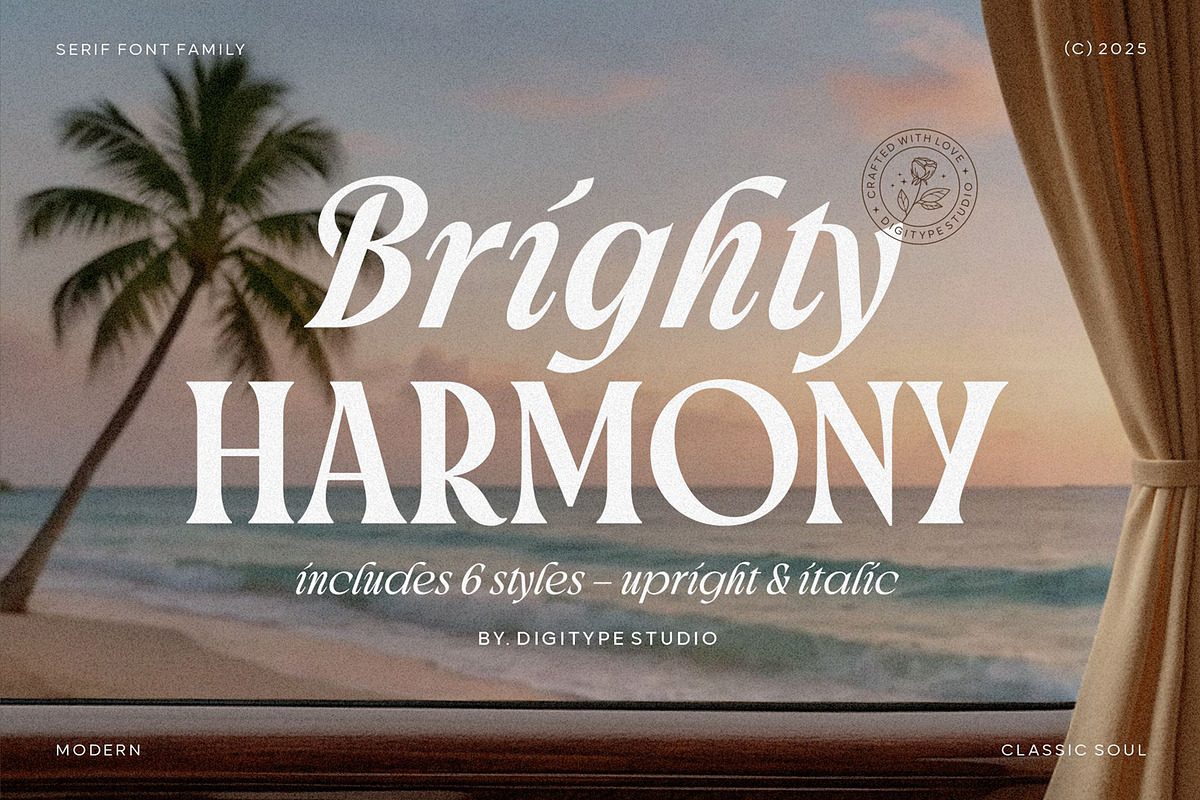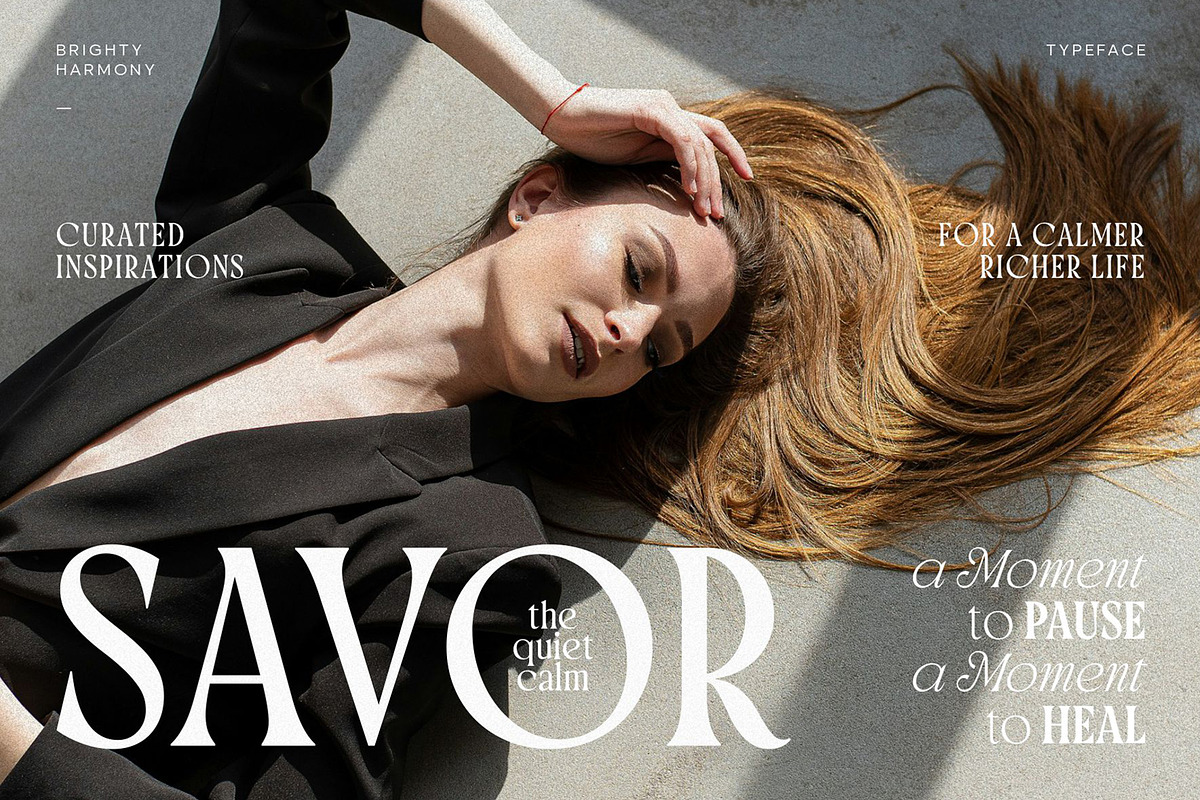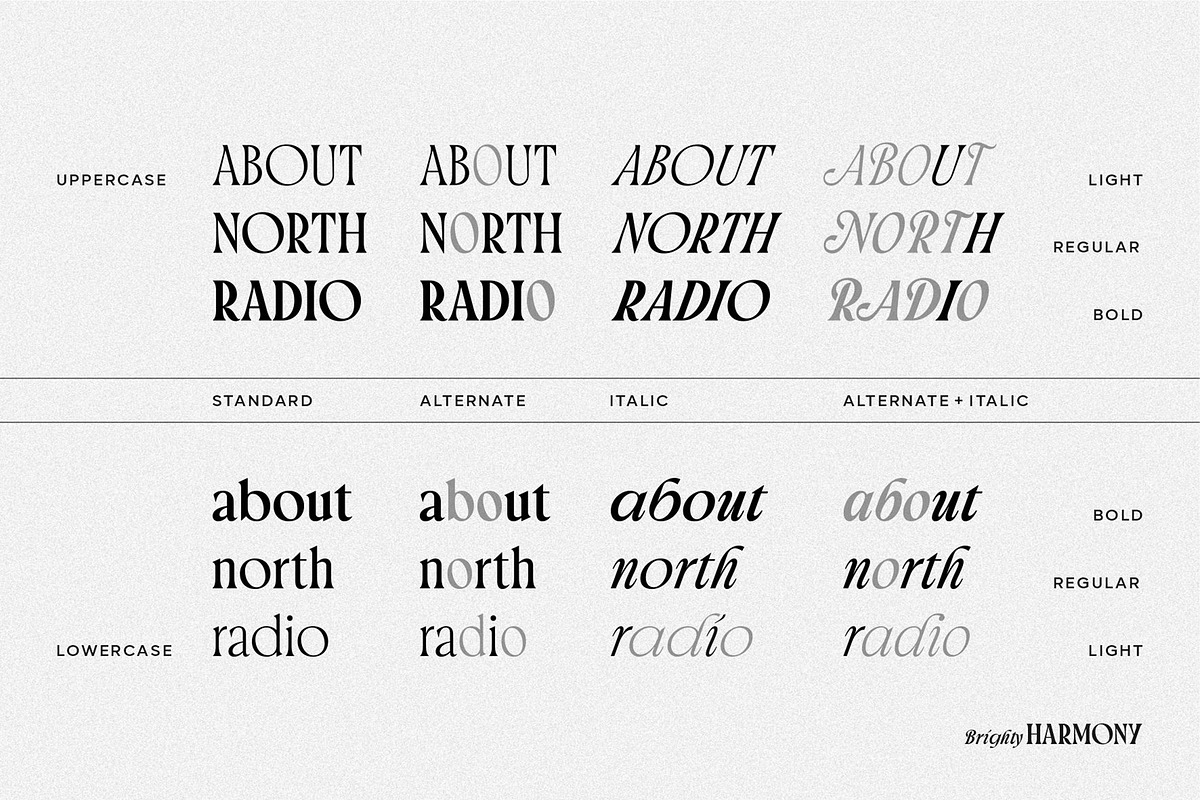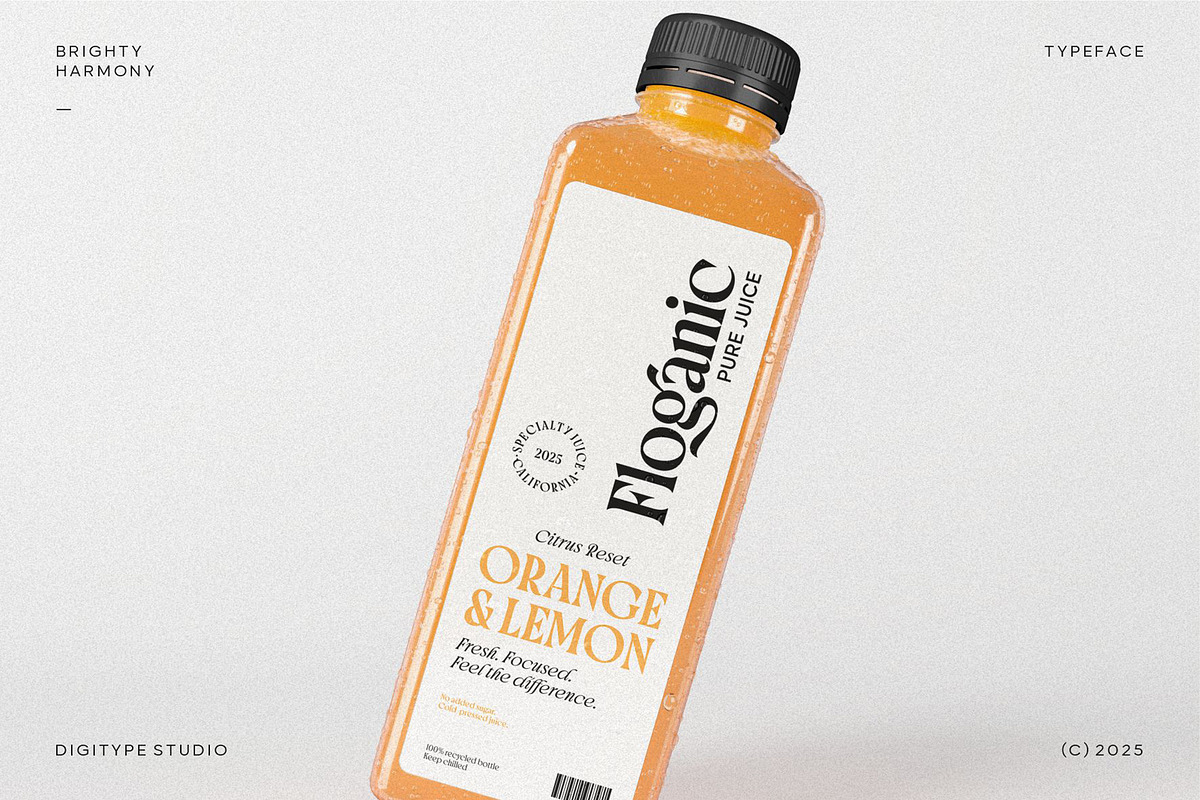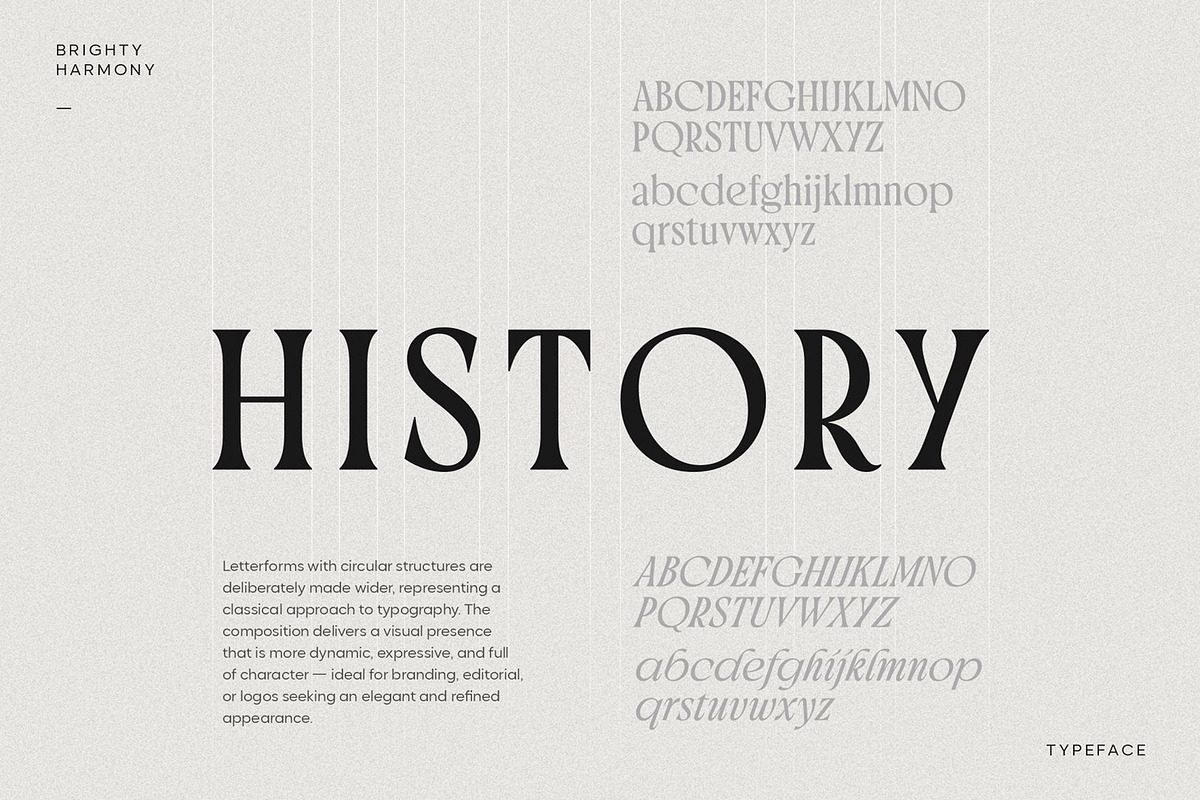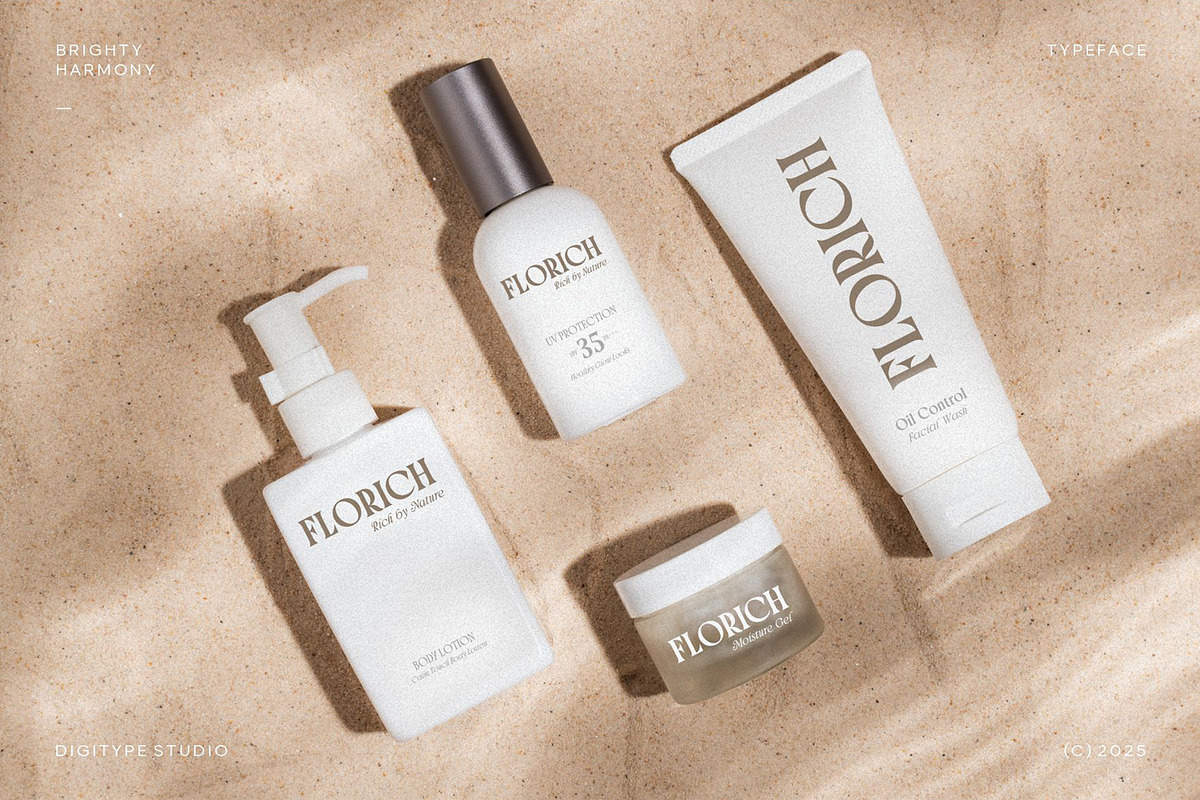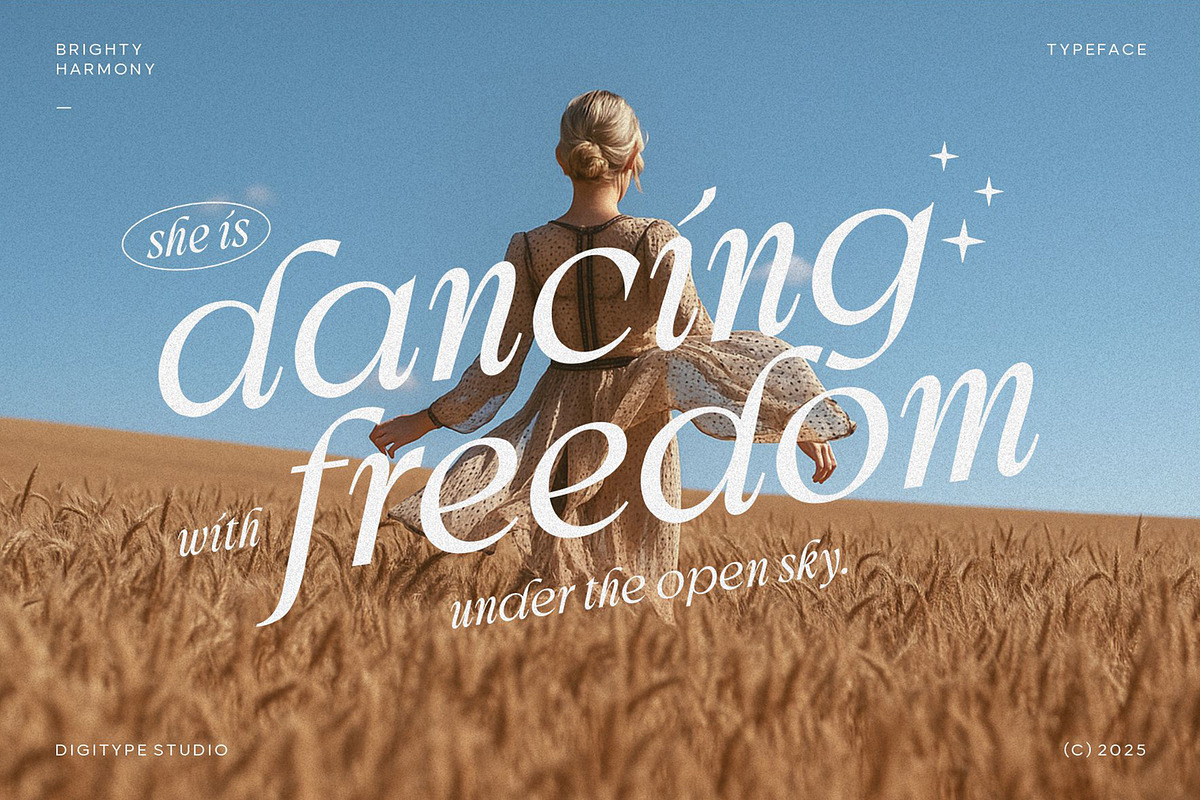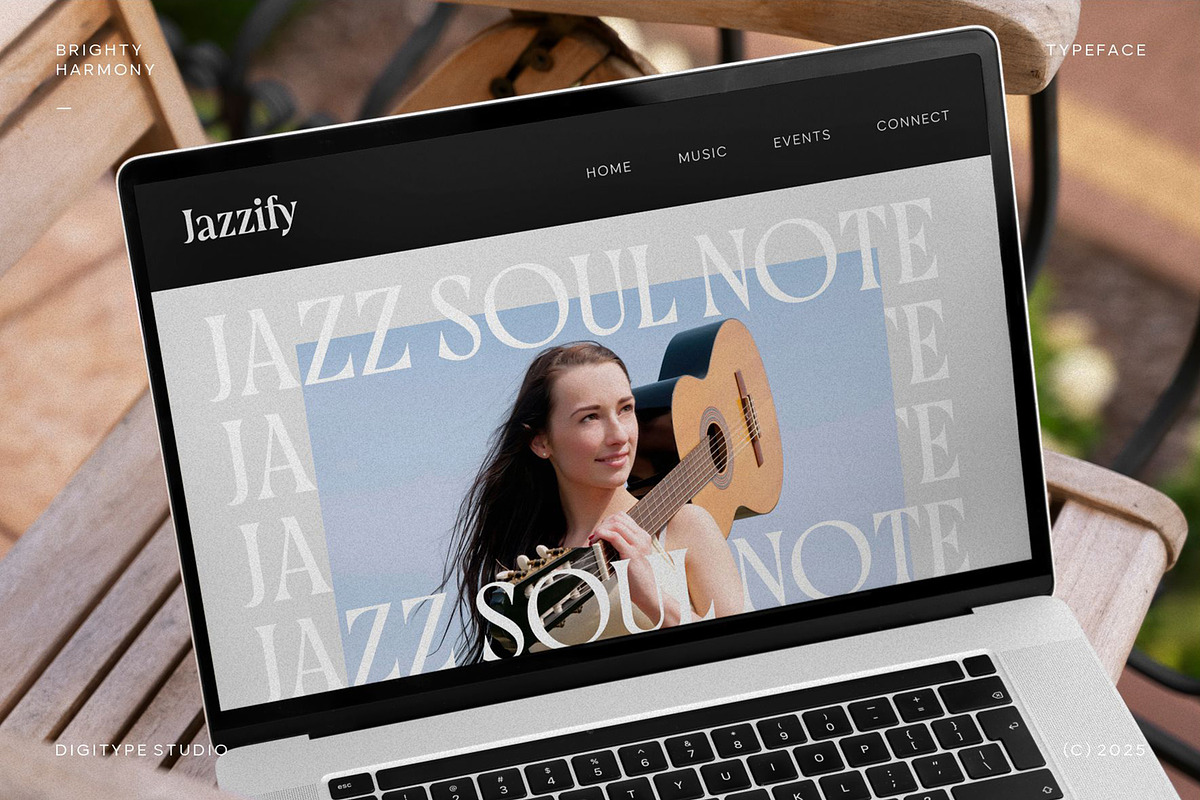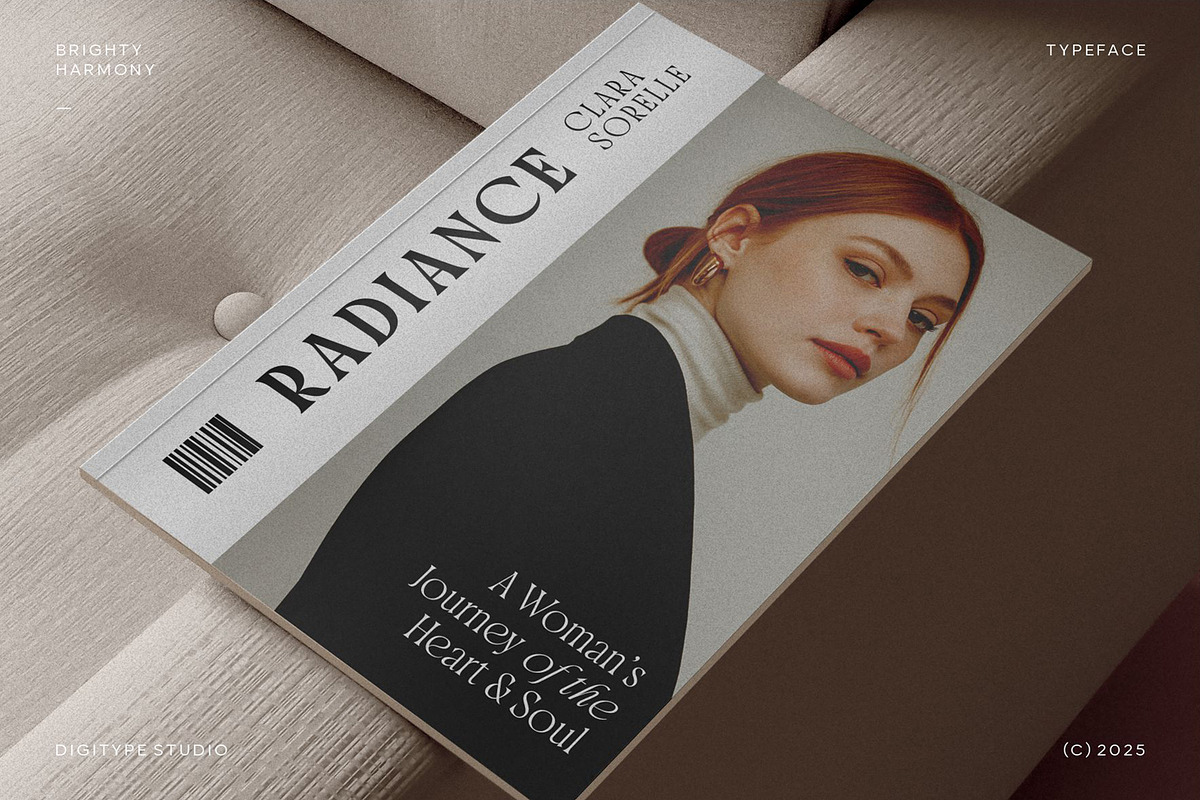
Brighty Harmony | Serif font family
Brighty Harmony is a modern serif font family that blends classical soul with a touch of contemporary elegance. Available in 6 styles—including both upright and italic versions—this typeface is designed to offer visual harmony and flexibility across a wide range of design contexts.
The letterforms feature circular structures that are deliberately made wider, reflecting a classical approach to typography. This composition brings a visual presence that is dynamic, expressive, and full of character—ideal for branding, editorial, or logos seeking an elegant and refined look.
With its timeless sophistication, Brighty Harmony is a perfect fit for fashion design, premium packaging, brand identity, and editorial works that demand a polished yet aesthetically strong appearance.